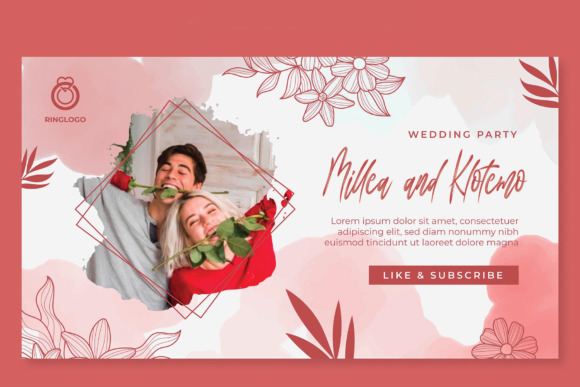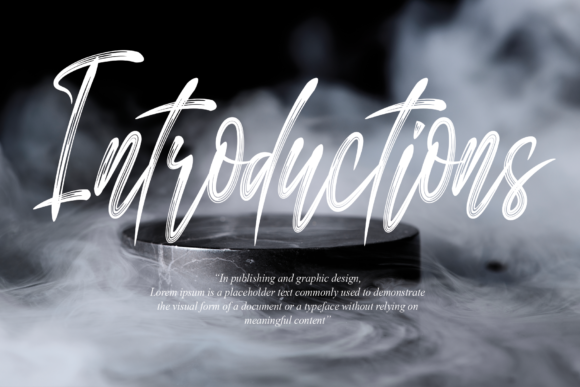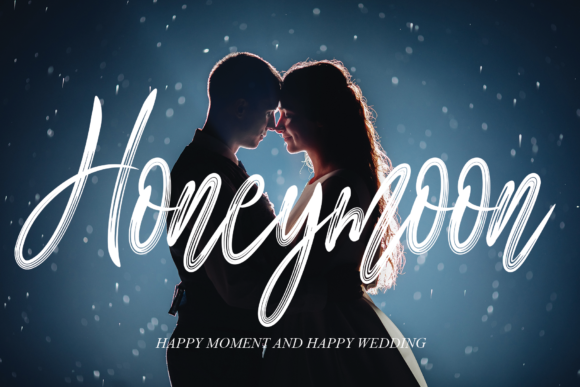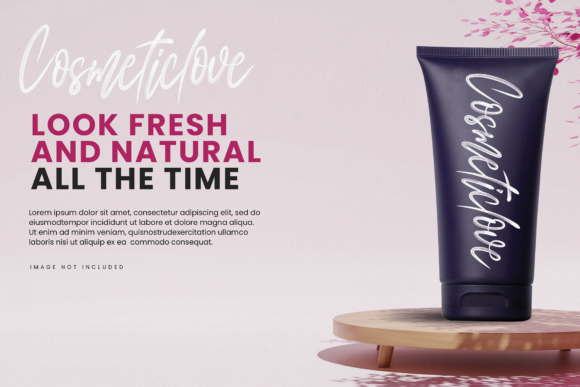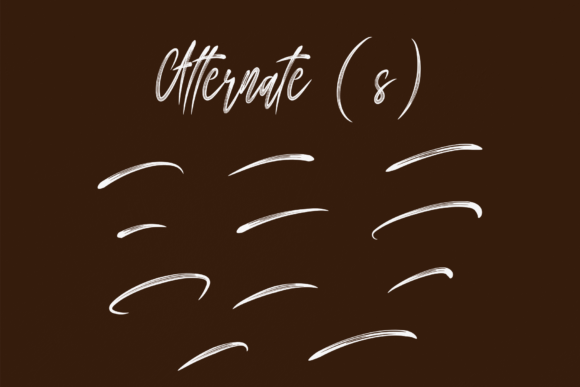
The Black out Font
About The Black out Font
The Black Out is a beautiful and refined script font. It has a classy, elegant and modern look that can be used for logos, branding, invitations, stationery, wedding designs, social media posts, and much more!